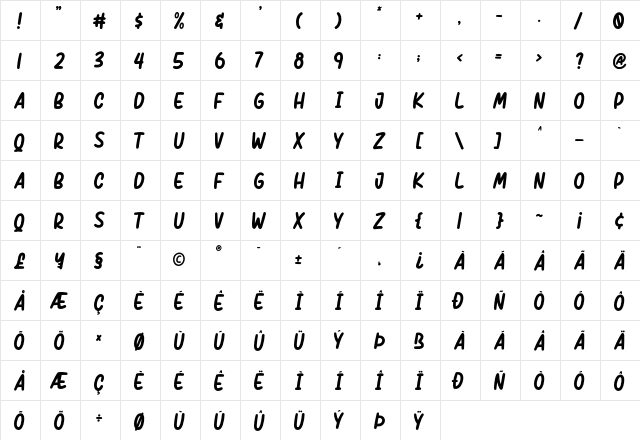
Childo Regular
Design Context for Childo Typeface
Childo has an approachable, lighthearted character — its loose, expressive forms are well-suited to children's content, casual branding, and fun-first design.
Font Pairing: Pairs well with a rounded or humanist sans for body copy, maintaining the friendly tone without relying on Childo to carry extended reading.
Pro Tip: Use Childo at larger display sizes where its expressive character can land. Pair with a clean, simple sans for body copy to maintain readability.